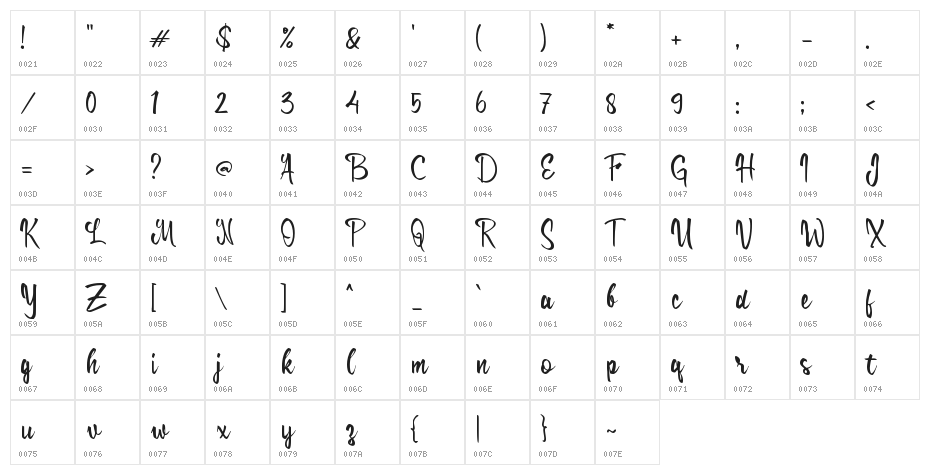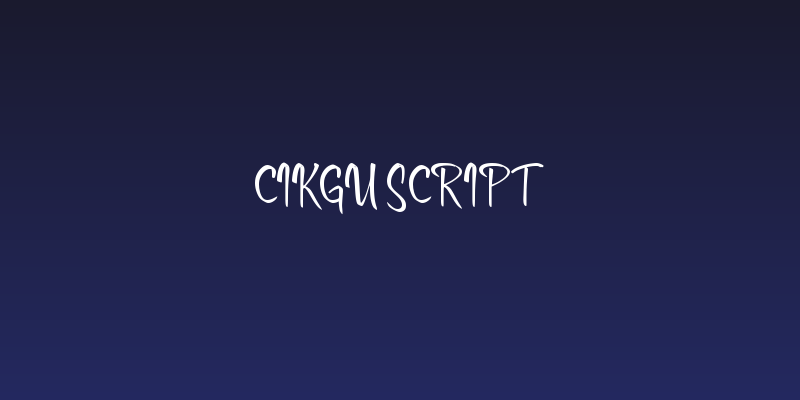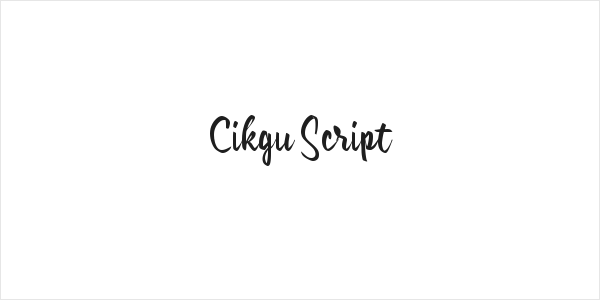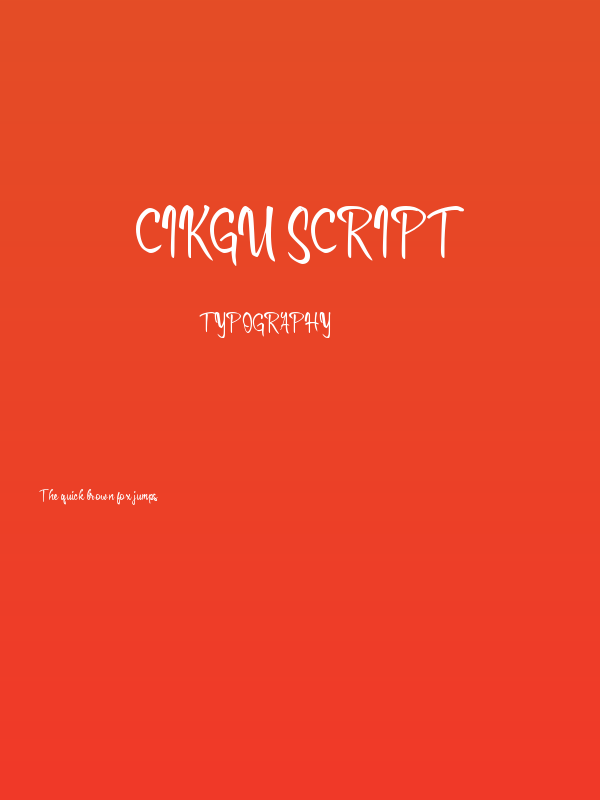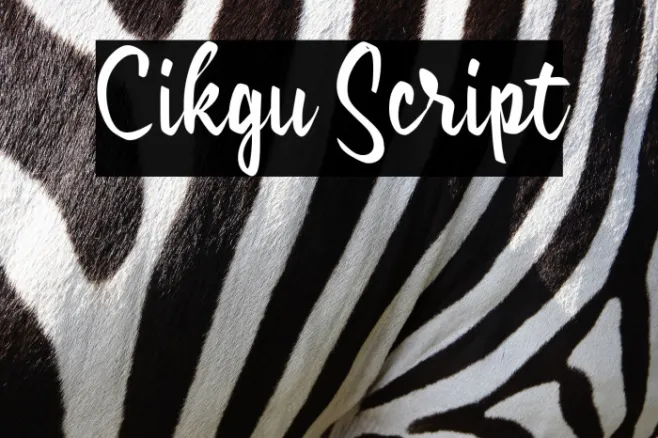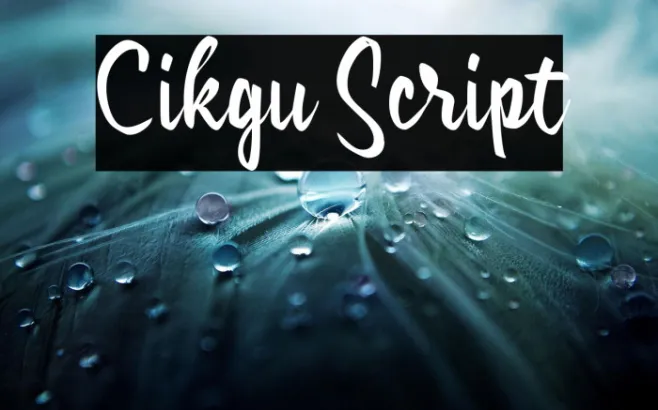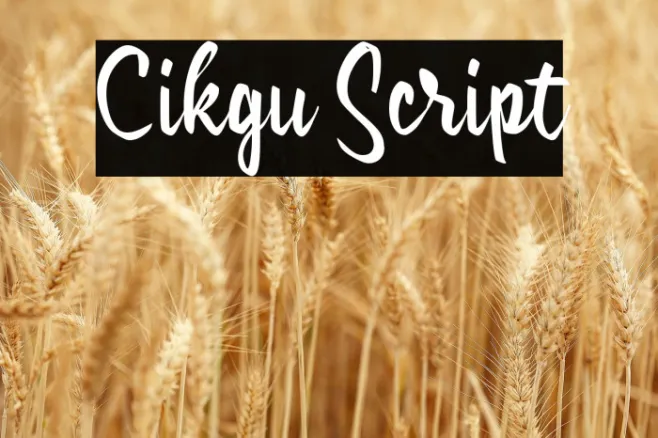
Cikgu Script Font
Cikgu Script Description
This font exhibits a lively and flowing script style, characterized by its smooth, cursive strokes that mimic natural handwriting. The uppercase letters are bold and slightly slanted, giving a sense of movement and elegance. The lowercase letters maintain a consistent flow, with some characters featuring loops and swashes that enhance the handwritten aesthetic. The numerals are clear and distinct, maintaining the script style without sacrificing legibility. Special characters are well-integrated, matching the overall fluidity and style of the alphabetic characters. This font is ideal for projects that require a personal, artistic touch.
| Proposed Projects | Ideal for wedding invitations, greeting cards, logos, and branding materials that require a personal, artistic touch. |